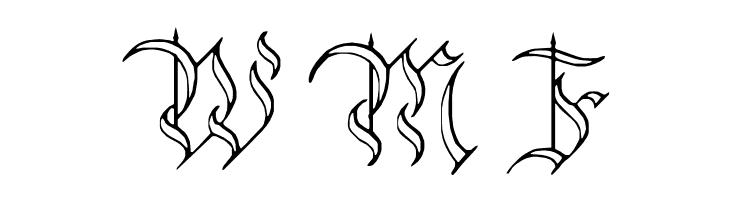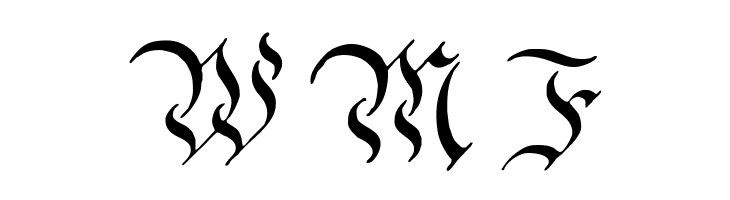
Arsenale White Font
A playful, casual handwritten font with fluid strokes and a friendly appearance.
Charterwell Font
An ornate blackletter font with intricate, gothic-inspired letterforms.
Charterwell Bold Font
An ornate Blackletter font with intricate details and a medieval style.
Charterwell No2 Font
An ornate blackletter font with bold, angular strokes and decorative flourishes.
Charterwell No3 Font
An ornate blackletter font with intricate, gothic-inspired designs.
Charterwell No4 Font
A decorative blackletter font with ornate, angular letterforms.
Charterwell No5 Font
An ornate blackletter font with intricate, gothic detailing.
Satisfaction Font
A bold, playful font with a retro flair and decorative flourishes.
Skinny Font
Spacearella Font
A bold, high-contrast font with playful curves and sharp angles.
Weird Font
Font by Daniel Gauthier
A bold, jagged font with an energetic and dynamic appearance.